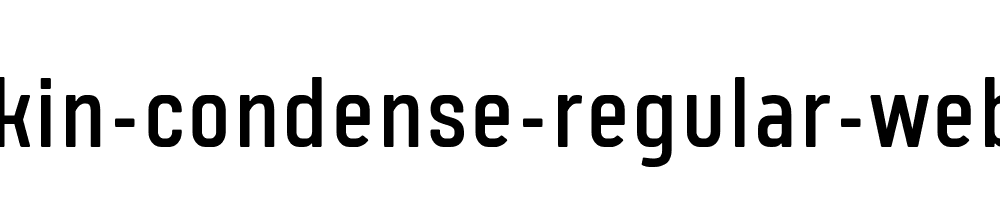
About tomkin-condense-regular-webfont
The font “tomkin-condense-regular-webfont” exudes a sense of neutrality with its clean lines and balanced proportions, making it versatile for a wide range of design projects. The font features subtle curves and sharp angles, creating an elegant yet rugged appearance that adds a touch of sophistication to any composition. Its serious yet friendly demeanor is perfect for conveying important information in a professional manner while still maintaining a sense of approachability. The technical, almost organic structure of the font gives it a classic yet progressive feel, making it ideal for both traditional and modern applications. With its familiar yet daring design, the font strikes the perfect balance between tradition and innovation. It remains discreet yet commands attention with its bold presence, perfect for capturing the viewer’s interest without overwhelming them. The font’s warm undertones add a touch of personality and charm, making it a timeless choice for any project. So if you’re looking for a font that combines elegance with ruggedness, seriousness with friendliness, and tradition with daring innovation, look no further than “tomkin-condense-regular-webfont.”